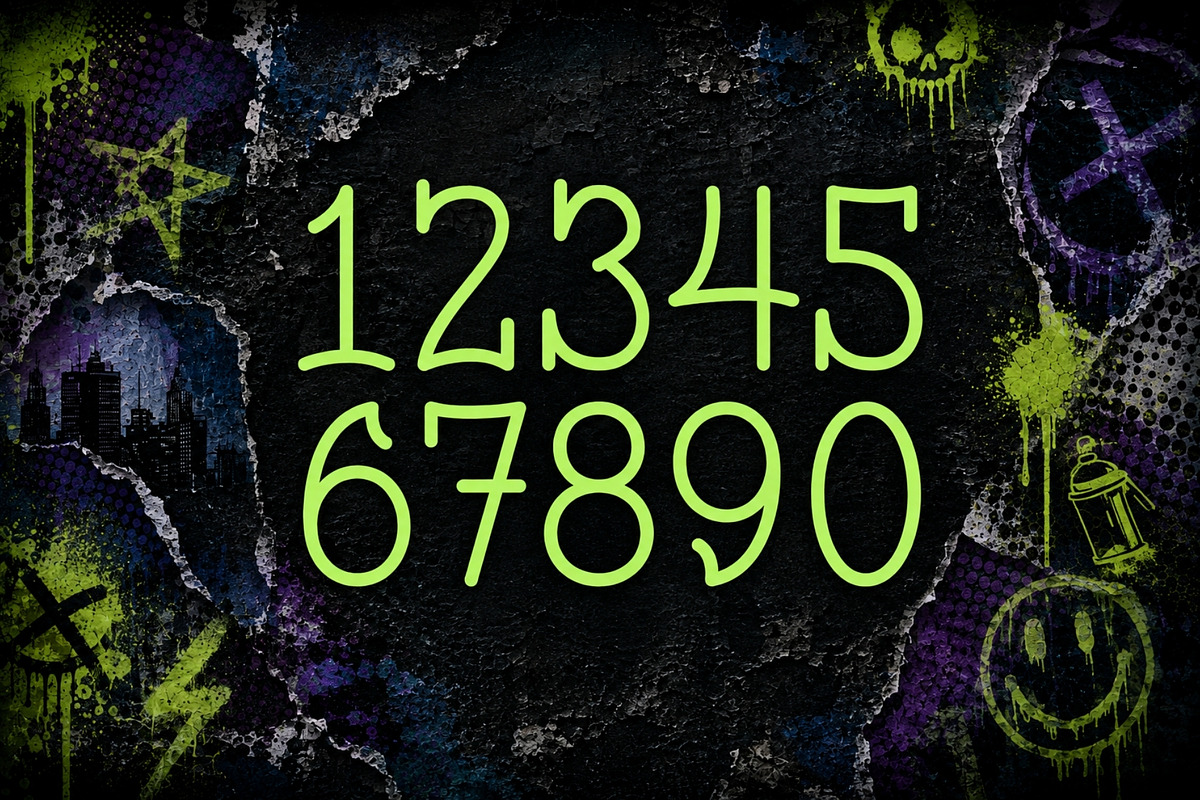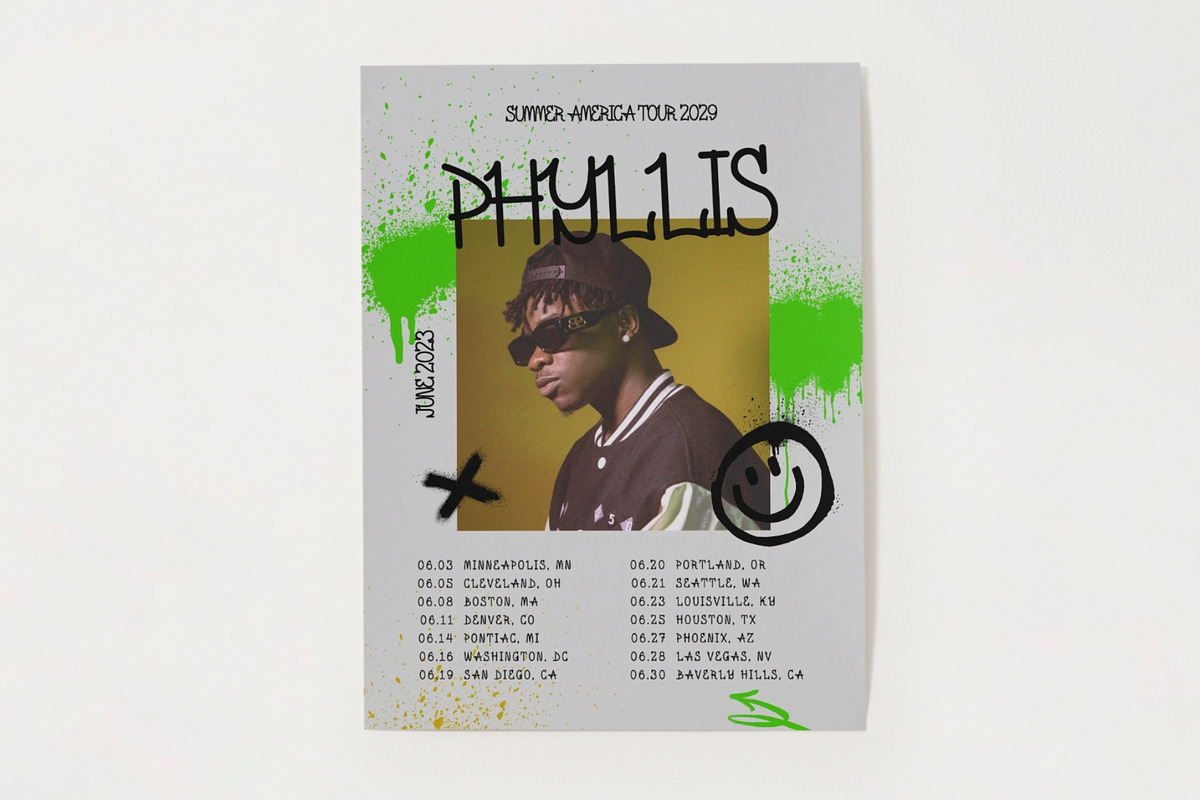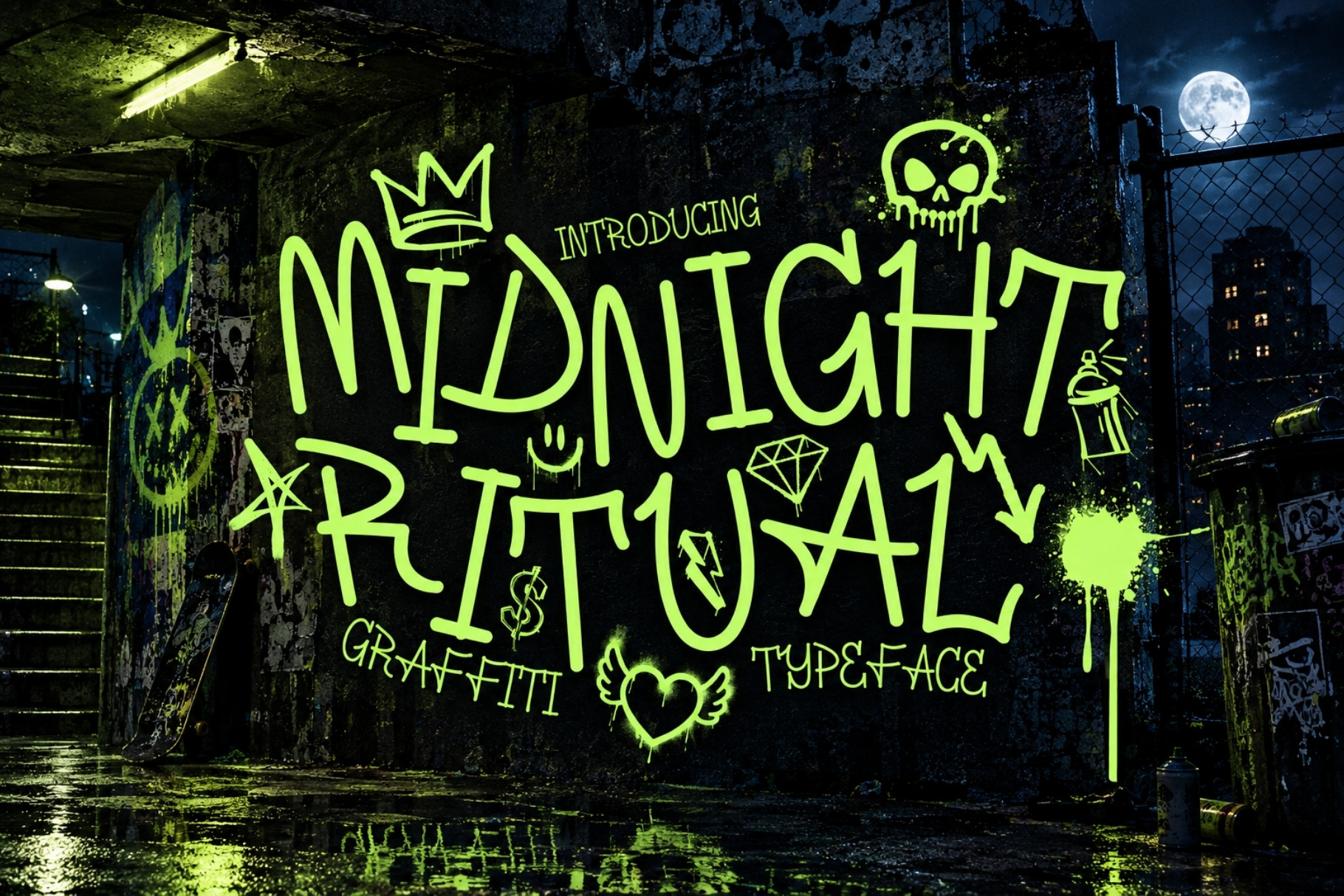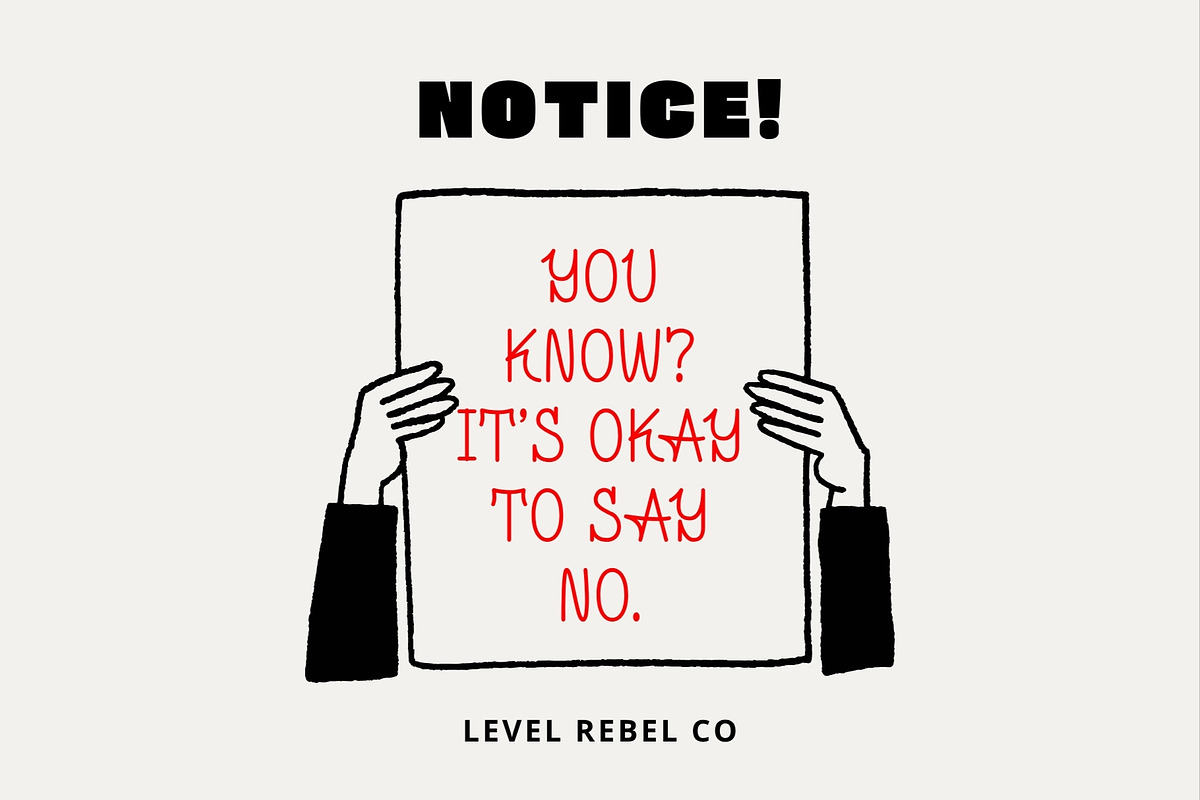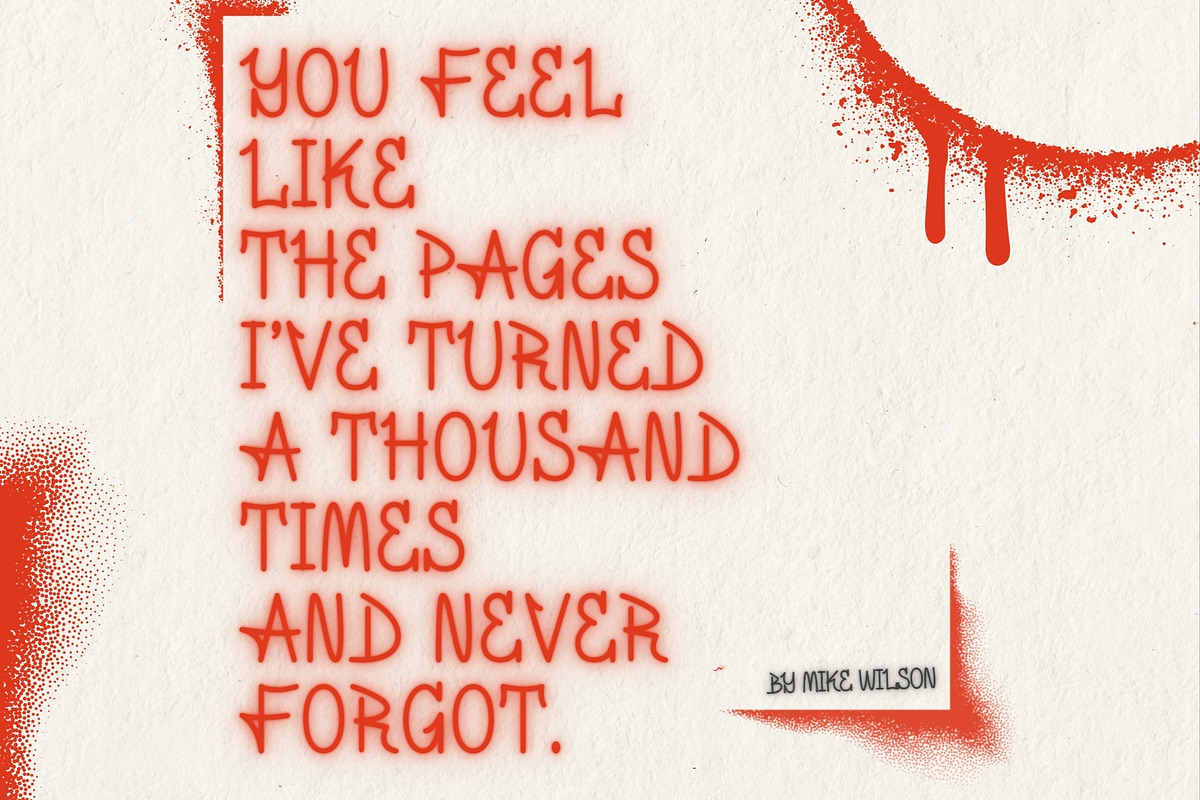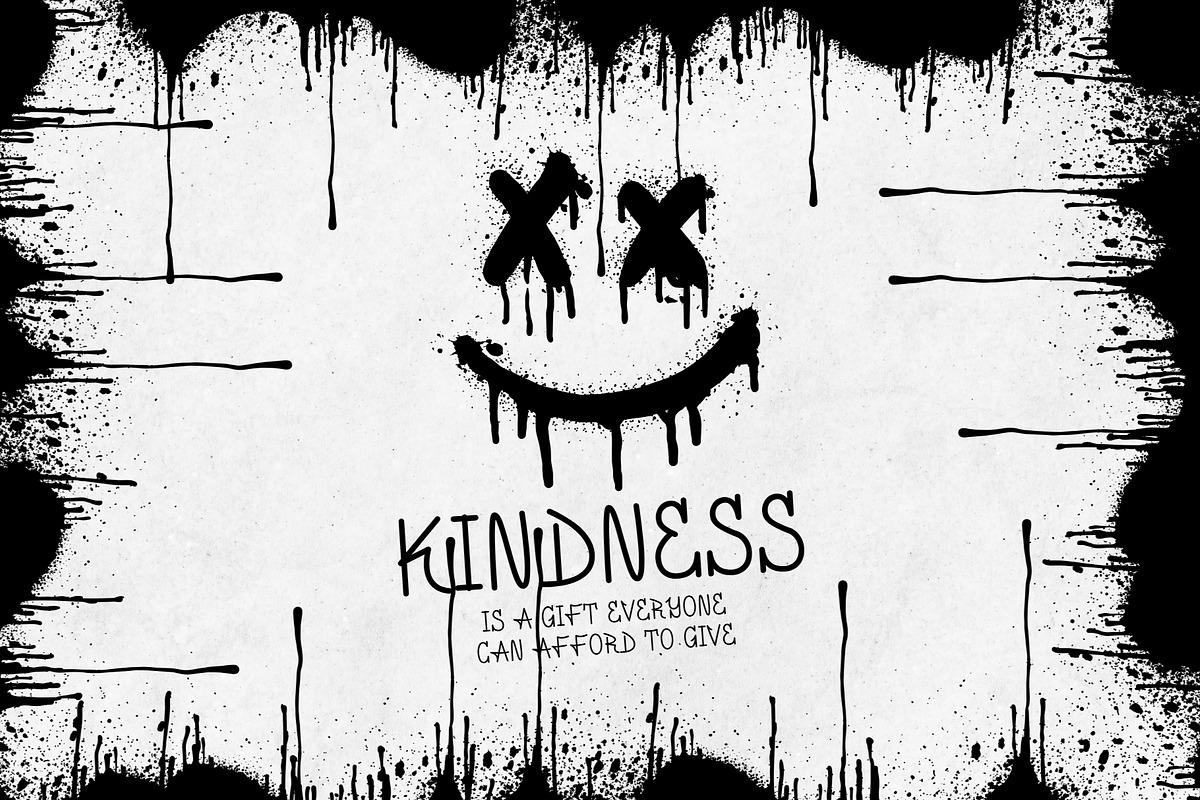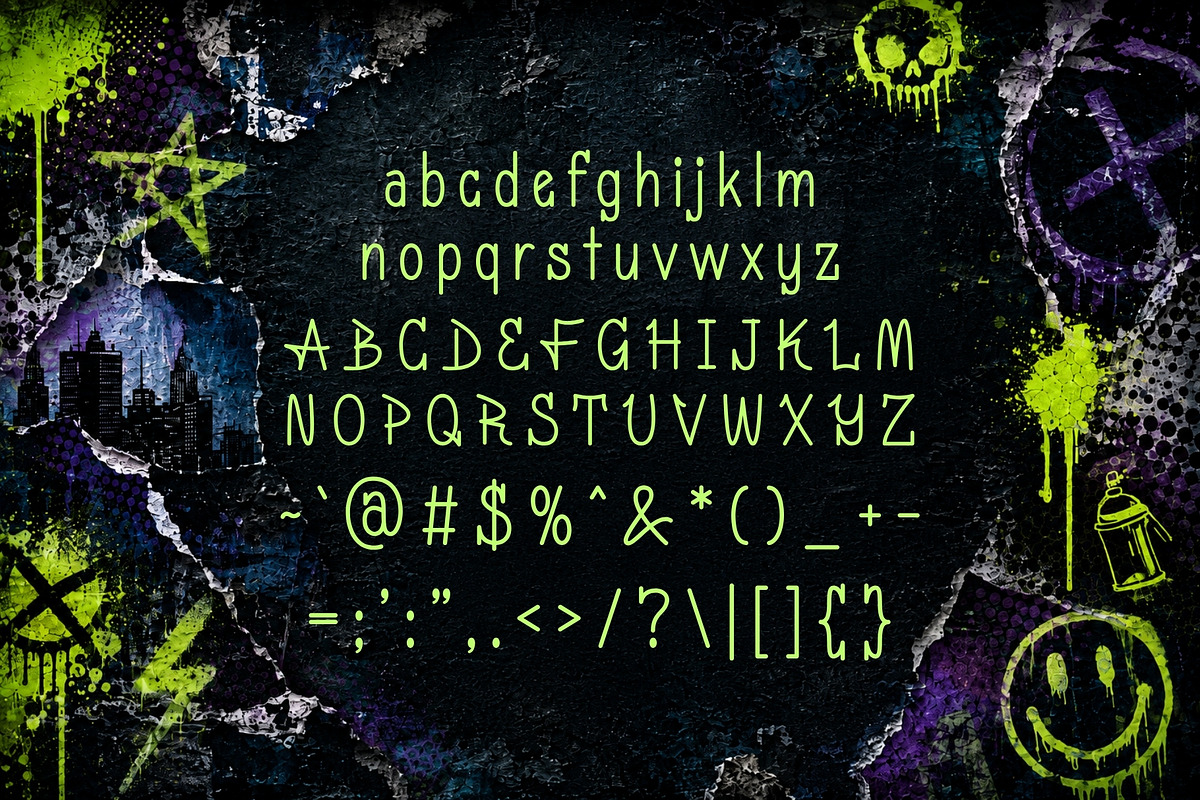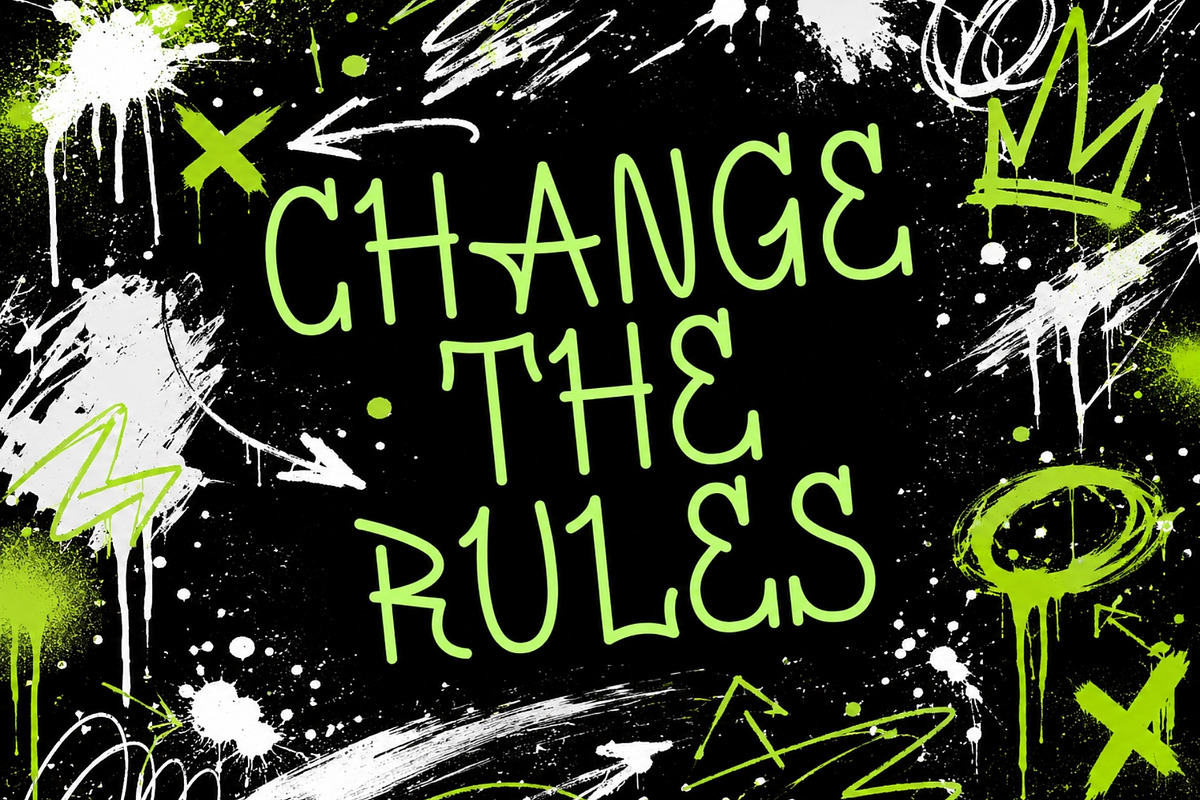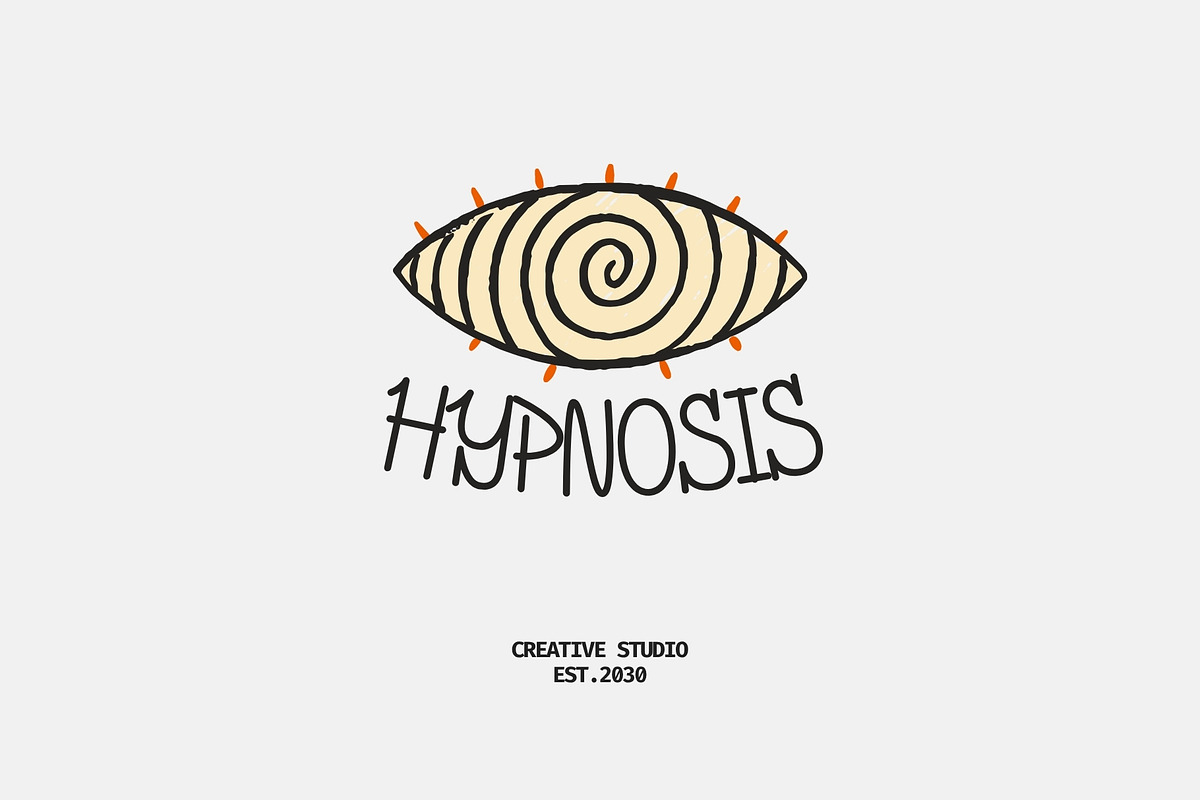
Midnight Ritual - Graffiti Font
Meet Midnight Ritual, a monoline graffiti font built for designs that need attitude, movement, and unmistakable street energy.
Carefully written by hand, Midnight Ritual combines the raw personality of graffiti lettering with a clean, continuous monoline construction. Its flowing strokes, expressive shapes, and slightly rebellious rhythm give every word the feeling of something written quickly across a wall, notebook, poster, or city surface—without sacrificing readability or versatility.
The result is a graffiti typeface that feels personal rather than mechanical. Midnight Ritual can look underground and gritty one moment, then surprisingly stylish and fashion-forward the next, making it an excellent choice for designers who want authentic street influence without relying on oversized bubble letters or conventional graffiti styles.
Use Midnight Ritual for photography, advertising campaigns, logos, branding, album artwork, film titles, music graphics, product design, apparel, posters, packaging, social media, special events, skate graphics, streetwear, editorial layouts, and more.
It pairs especially well with photography, rough textures, spray paint, halftones, collage artwork, distressed surfaces, handwritten notes, and experimental layouts—making it perfect for creating visuals that feel spontaneous, youthful, and alive.
Whether you're branding an underground fashion label, designing a music poster, creating a cinematic title sequence, or simply adding some street-born personality to your artwork, Midnight Ritual gives typography the energy of a handwritten mark left behind after dark.
Raw. Fluid. Rebellious. Made to leave a mark.